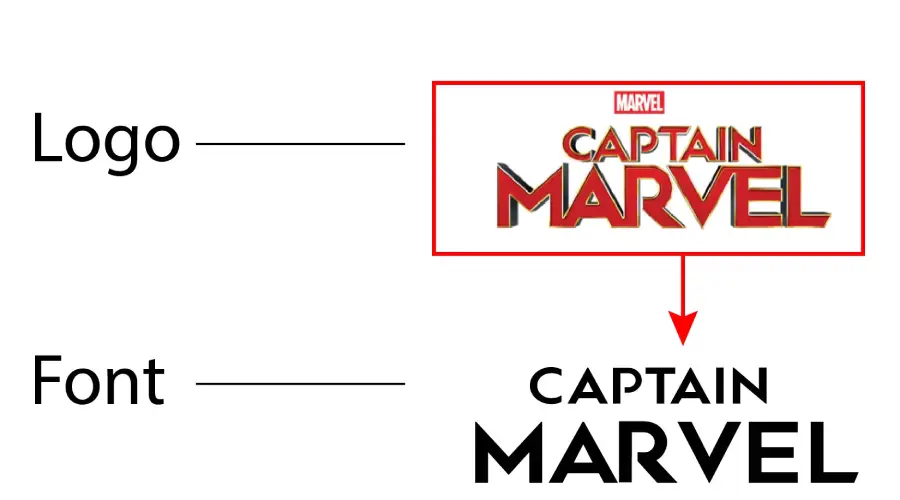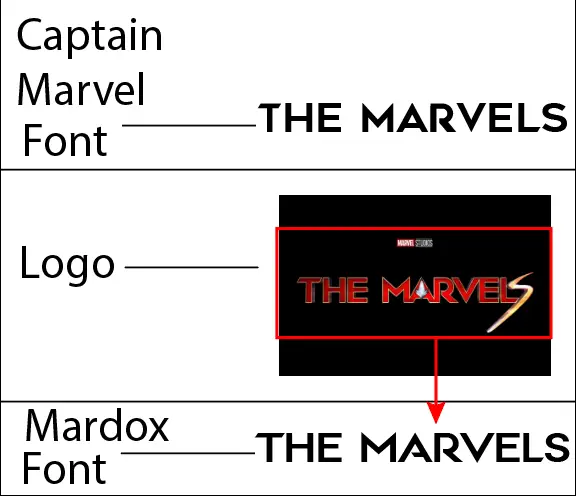
Captain Marvel Font
Hello, designers. Today, I will talk about Captain Marvel font. So stay with us till the end to learn amazing stuff about it! Captain Marvel is a superhero character first appearing in Marvel Comics in 1967. She has been featured in various comic books, animated shows, video games, and movies, such as the 2019 film Captain Marvel, which was a huge box-office success. They released a sequel movie called The Marvels in 2023.
Captain Marvel Logo vs Captain Marvel Font Similar Example
And the Captain Marvel logo is very unique and eye-catchy. Marvel used a custom font to create the logo, but a fan replicated it and named it Captain Marvel Font. Captain Marvel font is designed and published by NubeFonts. You can download it now from our link.
Captain Marvel Logo vs Mardox Font Similar Example
If you’re looking for more options, try the Mardox font. Maddox is another free alternative to the Captain Marvel logo font. You can check out the font in our font generator and download it for free.
The logo and title in The Marvels (2023) movie also look very similar to Captain Marvel and Mardox font.
Captain Marvel font and Mardox font are two typefaces related to Captain Marvel. They are both inspired by the logo font used for the movie. If you are looking for a superhero font that will make your designs stand out, they are a great choice!